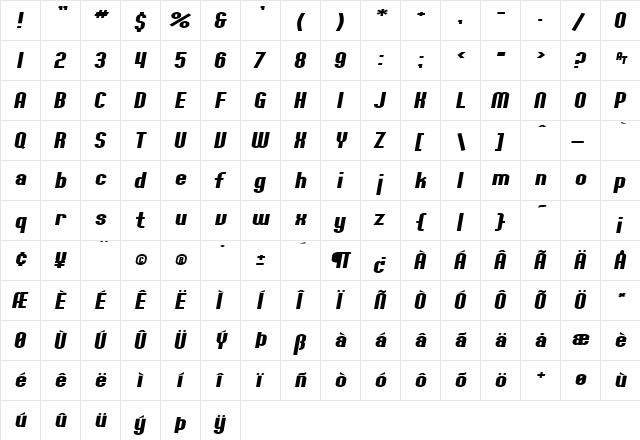
SF Willamette Extended Bold Italic
Design Context for SF Willamette Extended Typeface
SF Willamette Extended takes a measured approach to typography — its balanced proportions and neutral character make it a reliable workhorse for both digital and print work. The slanted form adds forward momentum and visual energy. The heavy weight commands attention and anchors typographic hierarchies.
Pro Tip: Use SF Willamette Extended for emphasis, pull quotes, and subheadings where its slanted energy can add rhythm to the layout.